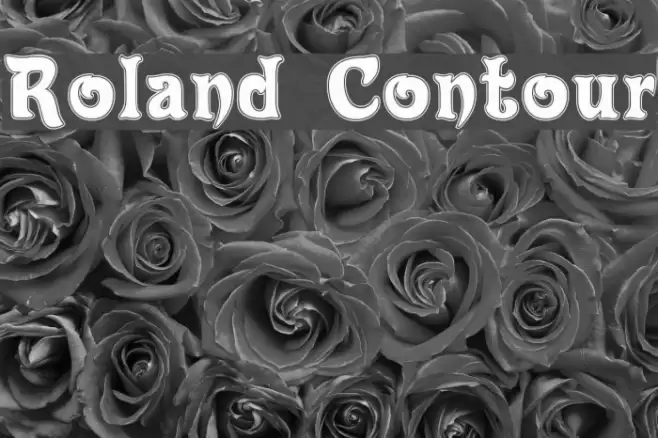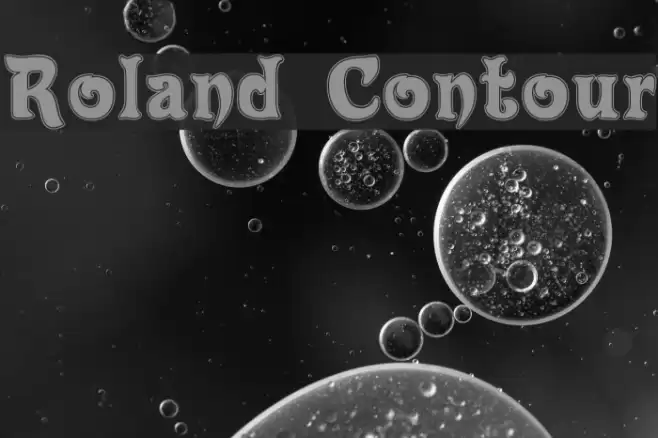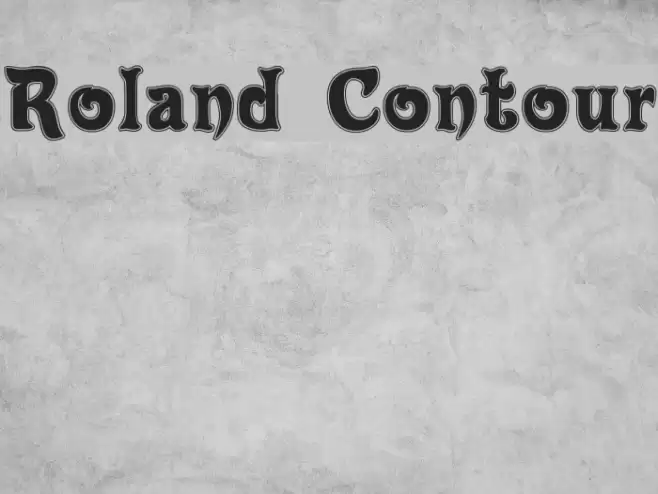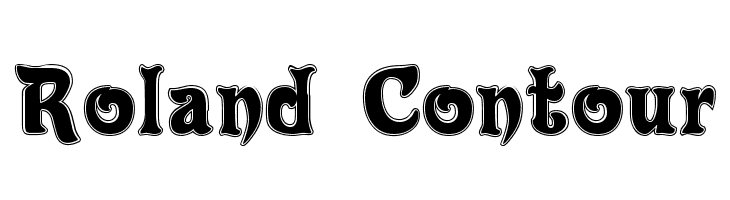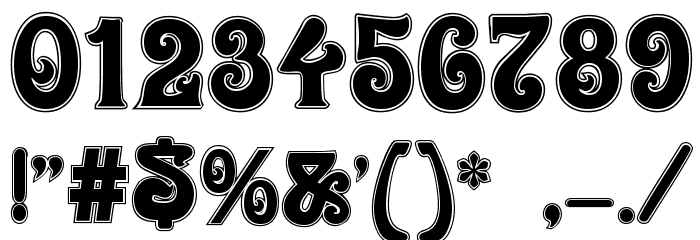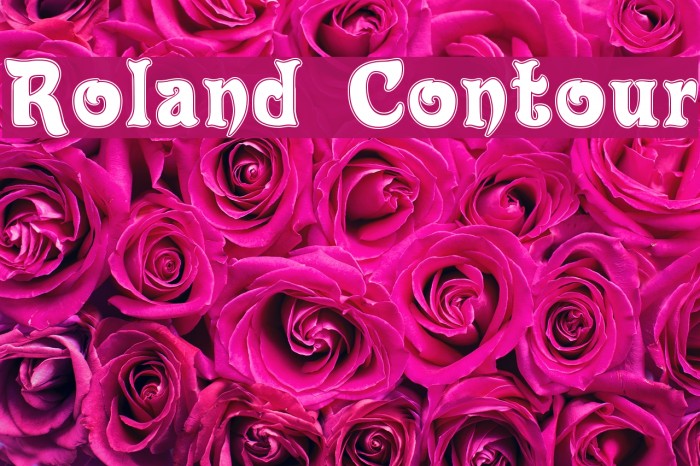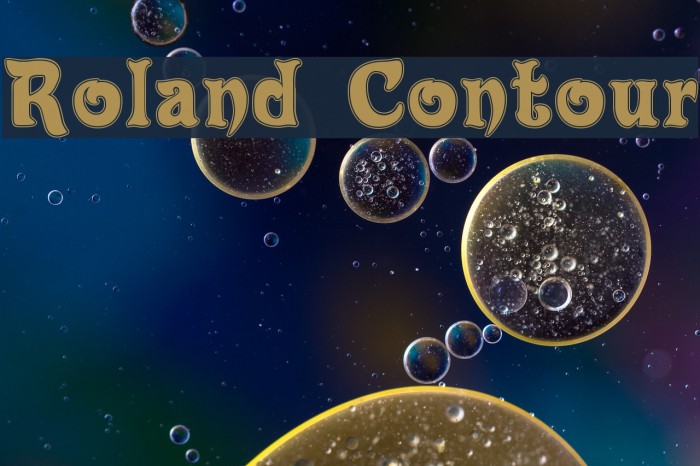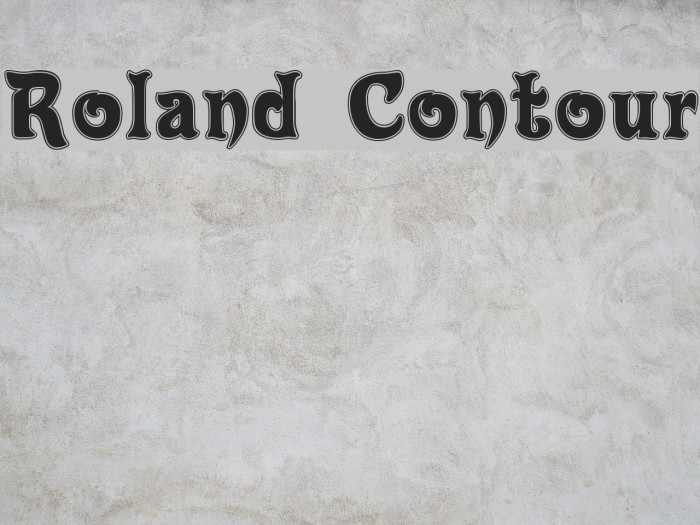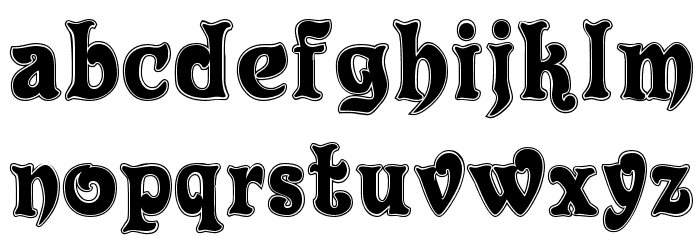
Roland Contour Font
Roland Contour Description
This font features a bold and decorative style with a distinct contour effect that gives each character a three-dimensional appearance. The uppercase and lowercase letters are designed with thick strokes and a shadow-like outline, creating a striking visual impact. The numbers and special characters maintain this bold contour style, ensuring consistency across all glyphs. The font's unique design makes it stand out, with its playful yet strong presence. It is well-suited for projects that require a touch of creativity and boldness, such as posters, logos, and headlines.
A bold, decorative font with a three-dimensional contour effect from Uncategorized fonts.
- Proposed Projects: Ideal for posters, logos, headlines, and any design needing a bold, creative touch.